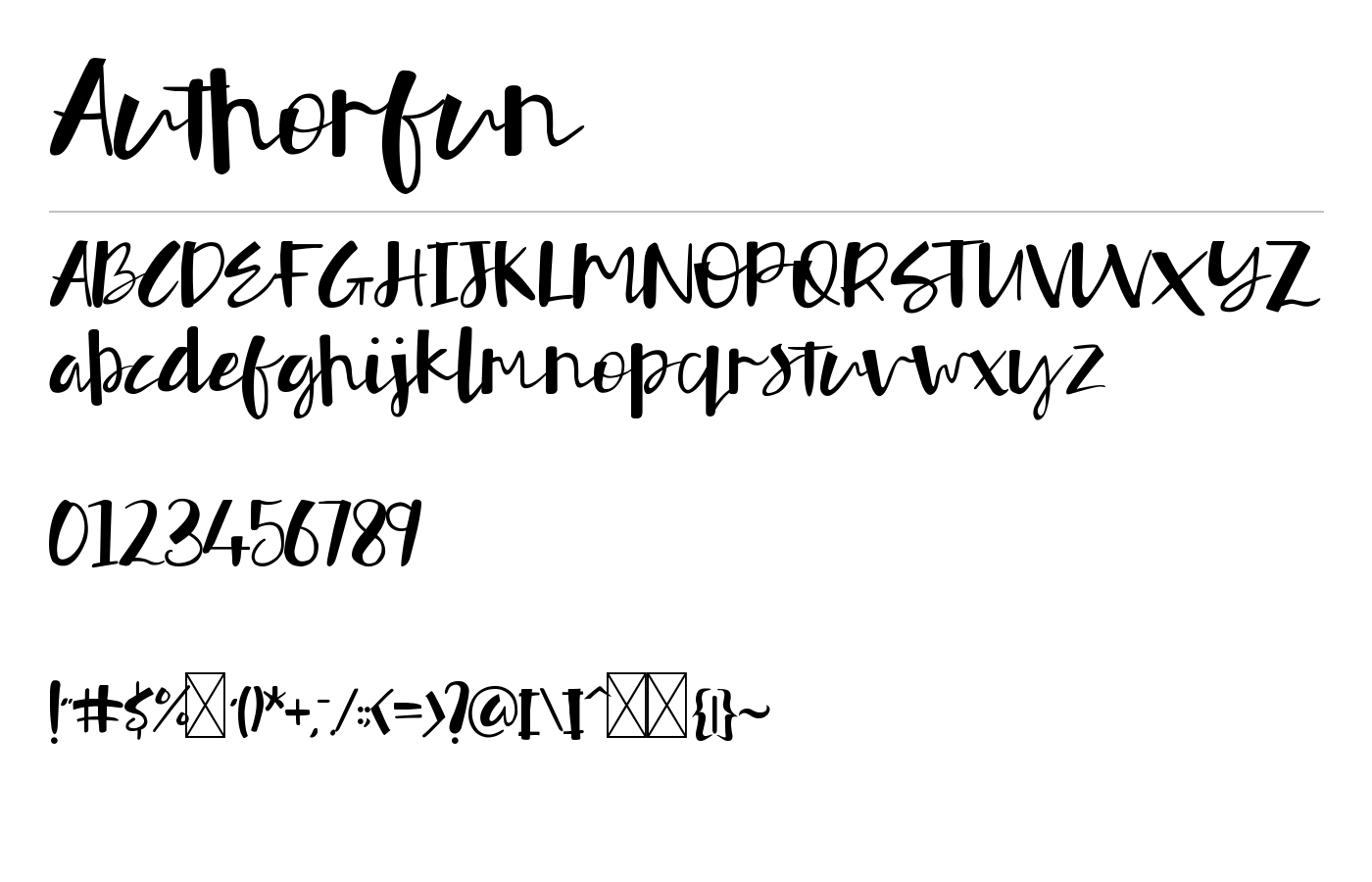
Authorfun Font is a lively and charming handwritten script with a casual, brush-painted feel. Its fluid strokes, moderate contrast, and playful letterforms make it ideal for creative projects, invitations, and branding that want to express a friendly and approachable personality. This font works beautifully in headlines and logos where a personal, artistic touch is desired.
Authorfun Font
About Authorfun Font